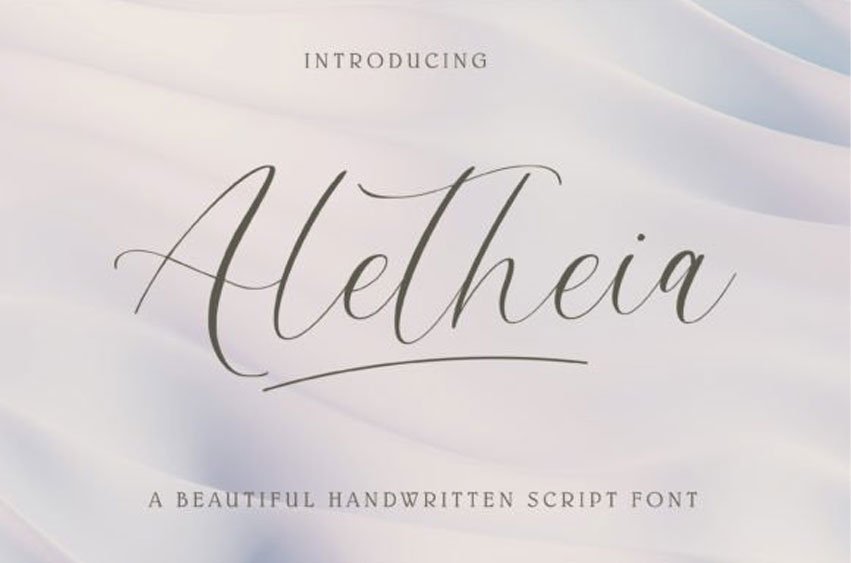
Aletheia Script Font is an elegant and beautiful handwritten font. Use it for any design projects that require a lovely appearance.
Aletheia is perfect for logos, branding, wedding invitations, business cards, greeting cards, signboards, posters, magazines, social media, planner prints, crafting, and websites.